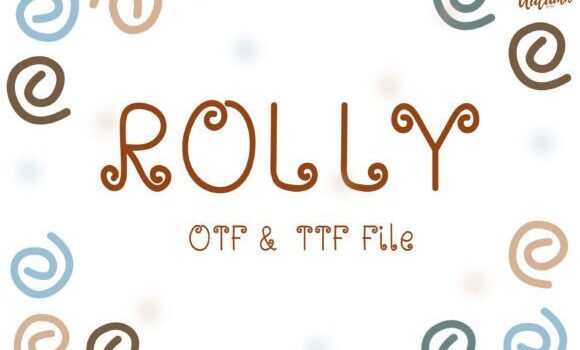
rolly
Rolly Font – Free Download Introduction to Rolly Font is a decorative handwriting font that has a spiral roll decorated at the head or tail of the letters. 📸 Preview Gallery 3 images 📌 Product Name Rolly Font